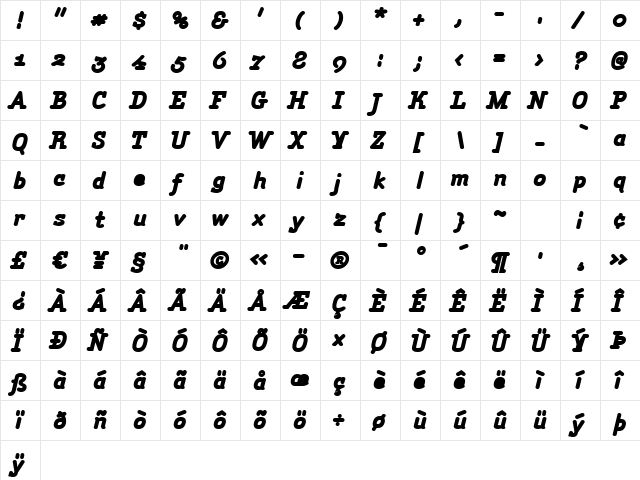
AmintaBlackItalic Regular
Design Context for AmintaBlackItalic Typeface
AmintaBlackItalic takes a measured approach to typography — its balanced proportions and neutral character make it a reliable workhorse for both digital and print work. Its italic angle brings a sense of urgency and motion to the letterforms.
Pro Tip: Try AmintaBlackItalic for annotation and caption copy alongside an upright companion — the contrast in angle creates a dynamic but ordered typographic system.